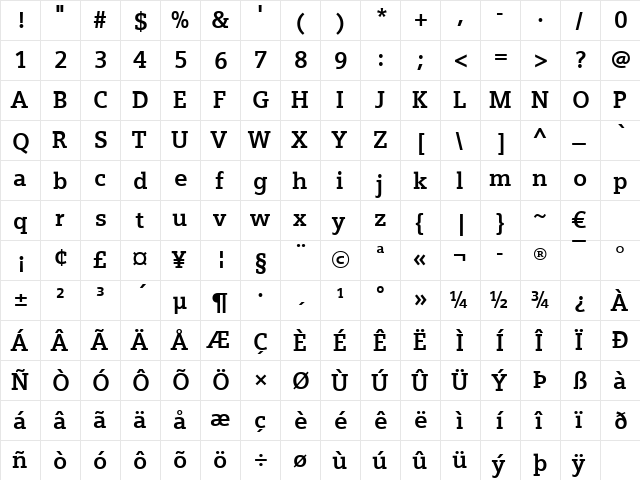
Siemens Slab Bold Font Preview
Siemens Slab Bold
Design Context for Siemens Slab Typeface
Siemens Slab features prominent, blocky serifs that give it a confident, grounded presence — equally at home in editorial settings and bold branding work. Its bold stroke weight gives it real presence on the page.
Works well in editorial design, news publishing, impactful branding, and poster typography.
Pro Tip: Try Siemens Slab set tight in headlines for a classic editorial feel. Its slab serifs create strong horizontal rhythm that anchors a page layout.